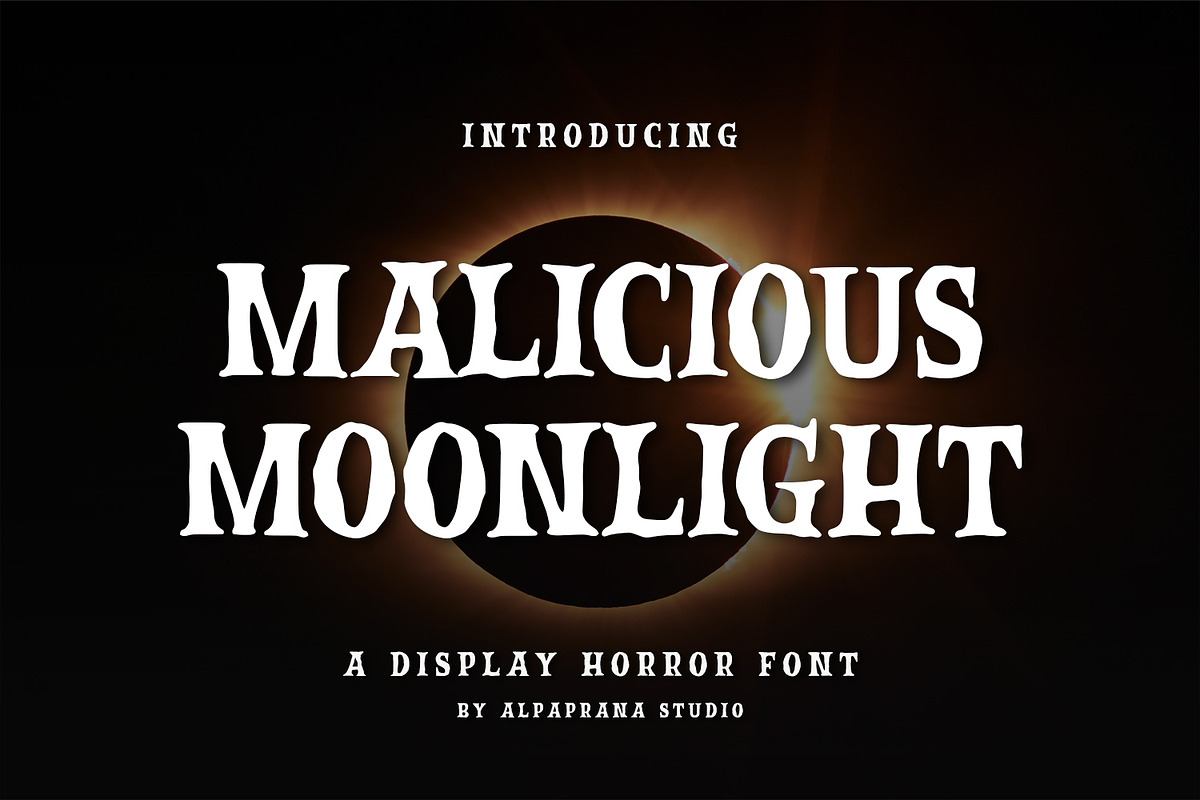
Malicious Moonlight - Display Font Free Download is a bold, dramatic typeface with a mysterious and gothic flair. Featuring sharp lines, unique character shapes, and an edgy design, this font is perfect for horror movie posters, dark-themed branding, book covers, music album art, and any creative project that needs to make a strong visual statement.
Its high contrast strokes and stylized design give it an intense, striking appearance—ideal for projects that embrace dark themes or need a touch of rebellion and intrigue.